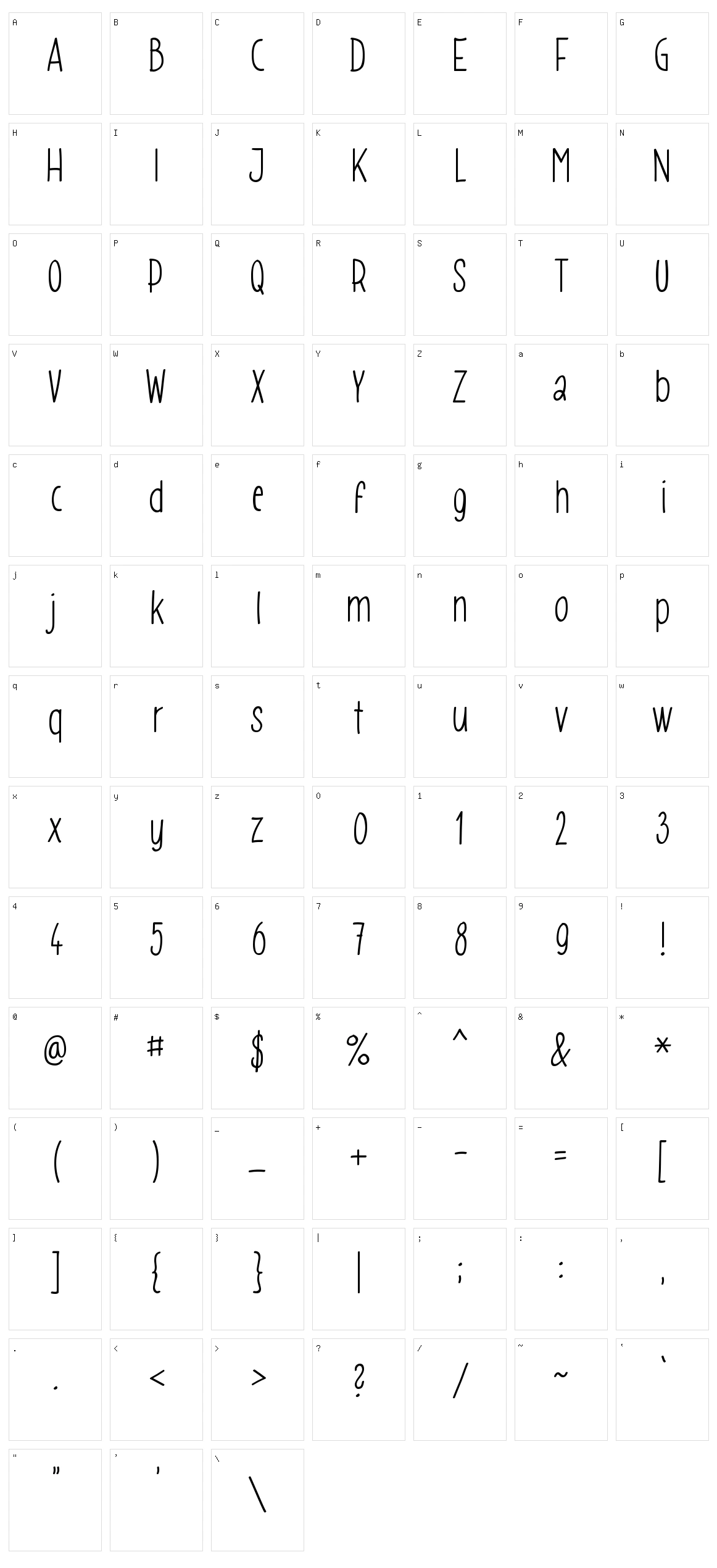
Gomez Strikes Again!
Designed by: V?t ÄŒond?k
Gomez Strikes Again!
Regular + Bold
by Vít Èondák
2015
Narrow handwritten font.
Štíhlý font psaný rukou.
0.09 2015-06-03
* tweaked positions of diacritic marks
+ (R) paragraph
+ revised bold version
0.08 2015-06-02
+ tilde+ circumflex+ pound @ (c) ...
+ superiornumbers
0.07 2015-06-02
+ all basic characters
0.01 2015-06-01
* first sketch